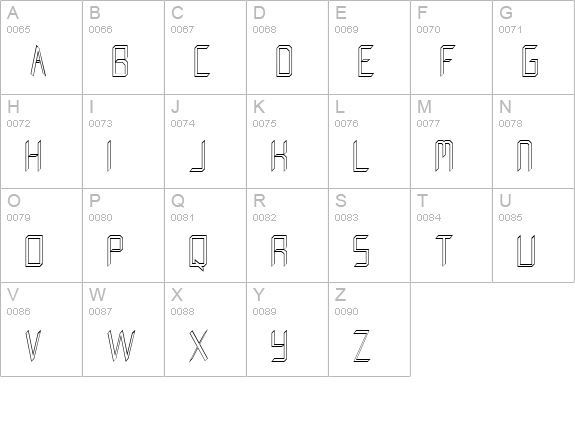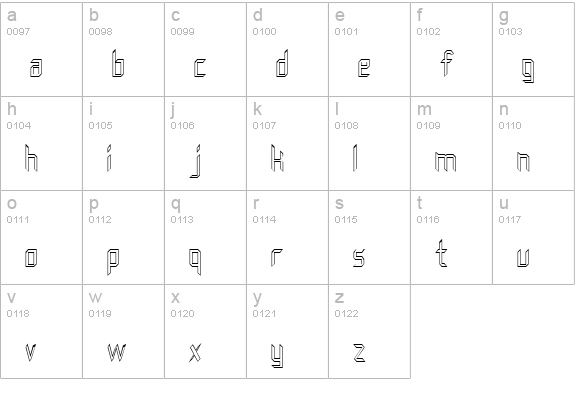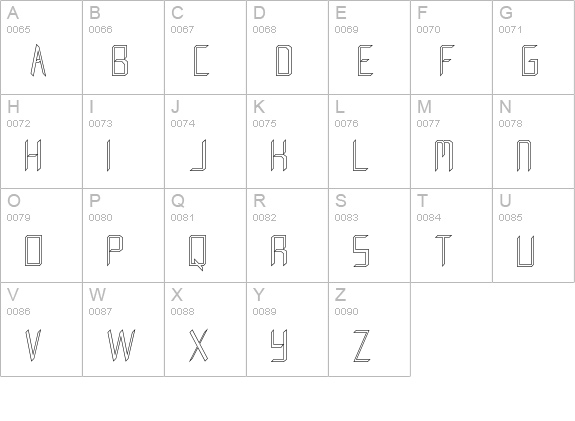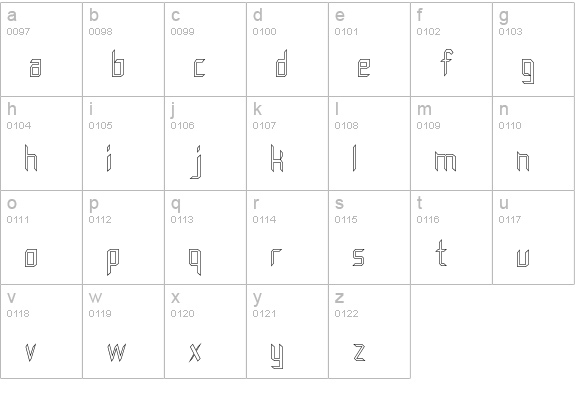
Mezzoforte font is a modern and stylish typeface that exudes sophistication and elegance. Its sleek lines and balanced proportions make it perfect for a wide range of design projects, from logos to headlines to invitations. The Mezzoforte font offers a harmonious blend of classic and contemporary design elements, making it versatile and timeless. Best of all, Mezzoforte font is available for free download at FontsMarket.com. This means you can add this beautiful font to your collection without breaking the bank. Whether you're a graphic designer, a blogger, or a small business owner, Mezzoforte font is sure to elevate your projects and make a lasting impression. Download Mezzoforte font today and take your designs to the next level!